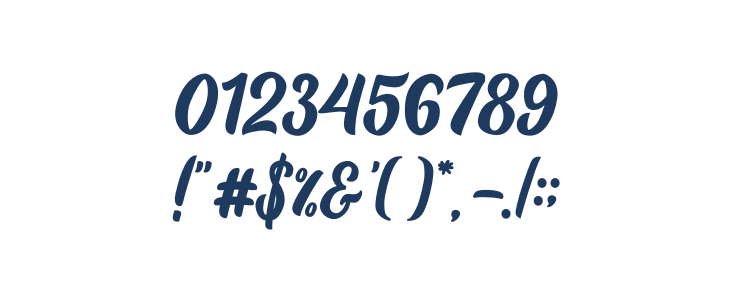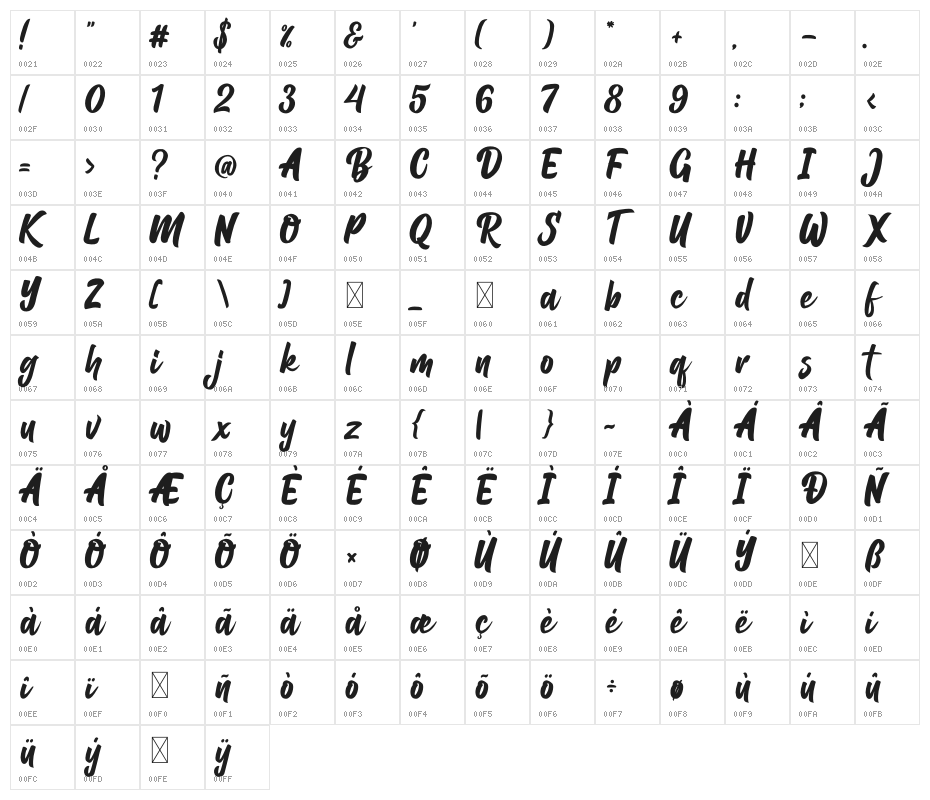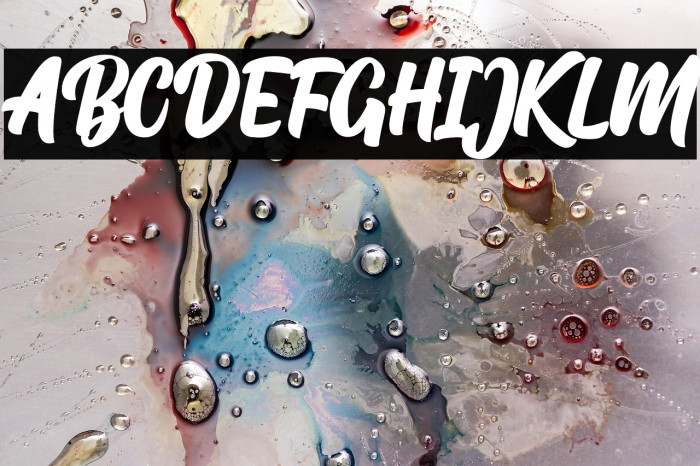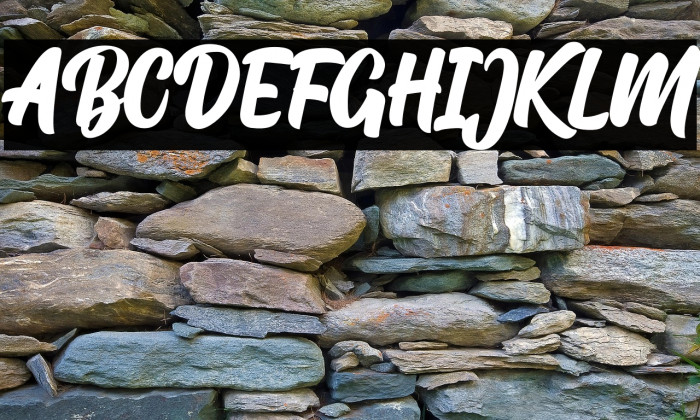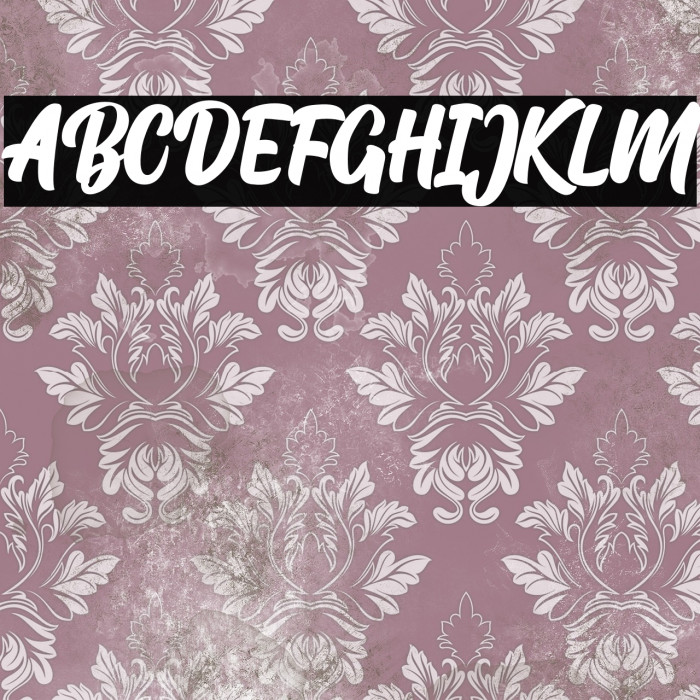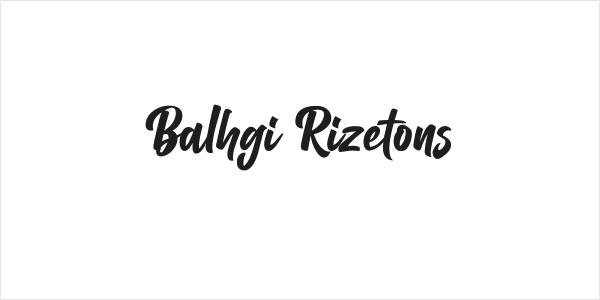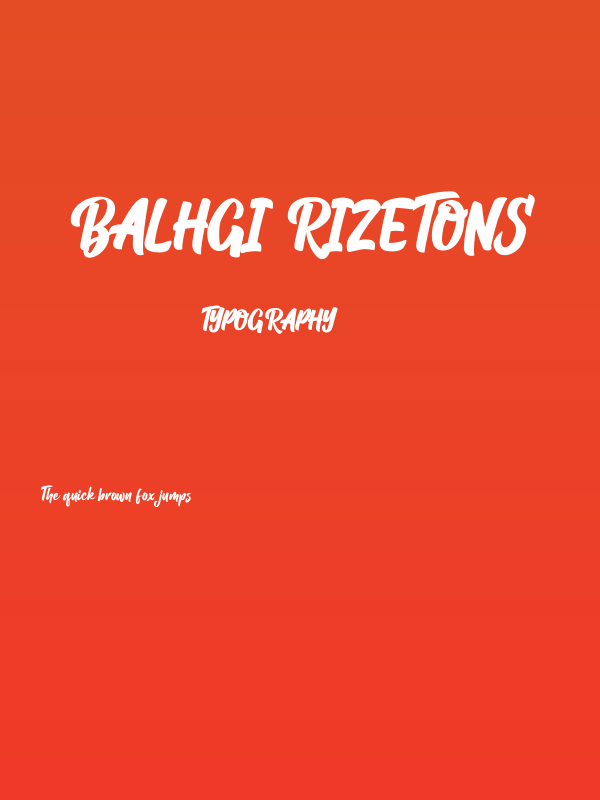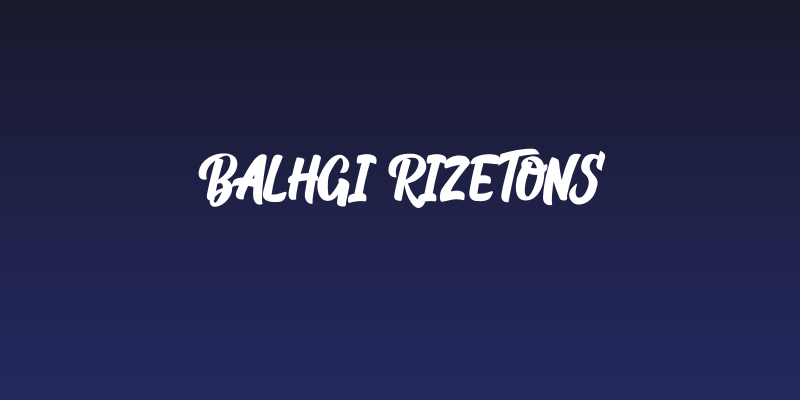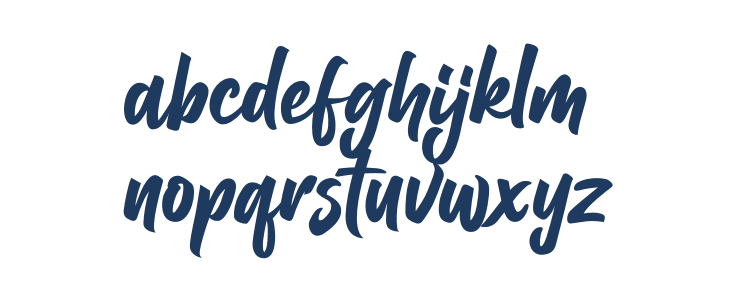
Balhgi Rizetons Font
Balhgi Rizetons Description
This font exudes a bold and energetic personality, characterized by its thick, flowing strokes and dynamic curves. The letters are crafted with a sense of movement, giving them a lively and expressive appearance. The uppercase characters are robust and commanding, while the lowercase letters maintain a playful yet cohesive style. The numerals are equally bold, ensuring they stand out with clarity. Special characters are designed with the same vigor, making them perfect for attention-grabbing designs. The overall style is reminiscent of hand-painted signage, offering a touch of nostalgia and creativity.
| Proposed Projects | Ideal for branding, posters, and creative projects that require a bold, expressive touch. |